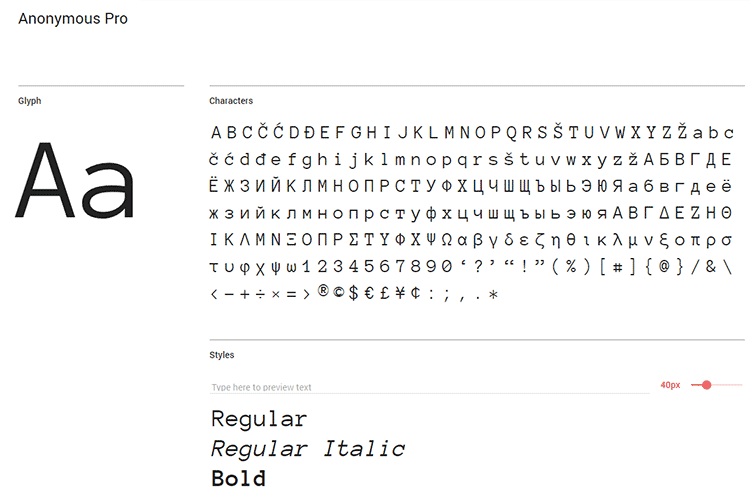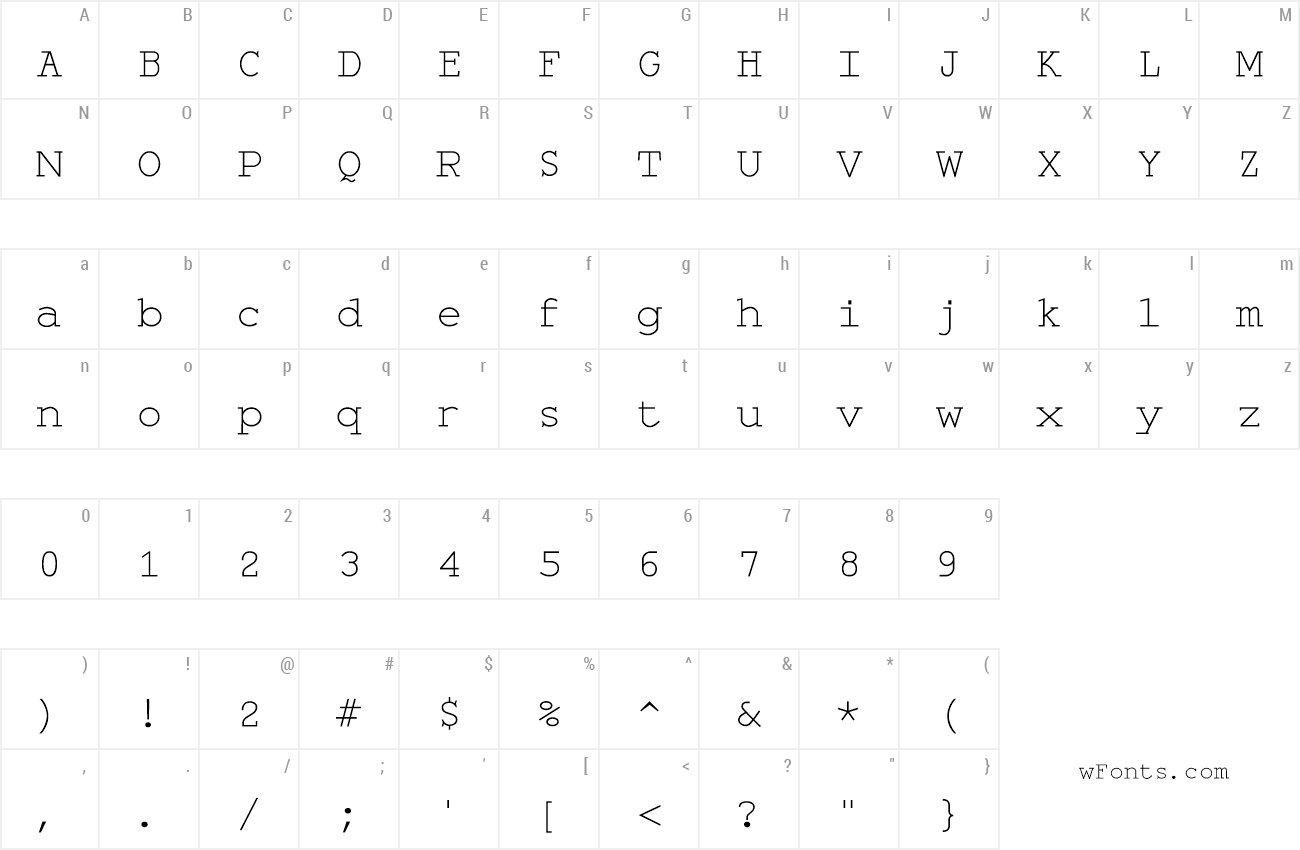
Best Monospace Font Word
Best Monospace Font Word. Not many people consider the importance of choosing and using the right font to project professionalism on your on screen documents or printed materials. You may not give much thought to the font you currently use for coding.
The first is proportional space, and the second is monospace. Download free monospaced fonts at urbanfonts.com our site carries over 30,000 pc fonts and mac fonts. Samples of monospaced typefaces typeface name example 1 example 2 example 3 {{{name}}} cascadia code:
Many Of Those Symbols, Letters, And Special Characters Are Quite Useful In Writing And Programming (E.g.
The first is proportional space, and the second is monospace. Samples of monospaced typefaces typeface name example 1 example 2 example 3 {{{name}}} cascadia code: It's a monospace font designed for printed code listings, terminal emulators, and similar uses.
Howard Bud Kettler, Adrian Frutiger Cutive Mono
Not many people consider the importance of choosing and using the right font to project professionalism on your on screen documents or printed materials. If you’re a business owner, student, or anyone who wants to add some professionalism in. When you subscribe to my weekly type roundup newsletter, i’ll send you a free pdf with a list of my predictions.
Examples of monospaced fonts include courier, courier new, lucida console, monaco, and. The courier font family was actually purposely designed as a typewriter font for ibm. Sans serif professional fonts in word.
An Open Source Alternative To The Proprietary Consolas Font From Microsoft.
It immediately gives retro vibes to a block of text. You are probably happy with the default monospaced font that comes with your favorite ide, and over time, you’ve become accustomed to it. Many “hipster” or “vintage” designs work with those fonts.
Merchant Copy +2 By Cumberland Fontworks.
Comes with ligatures for a. The type style you're looking for is monospace. Look out for odudo, a practical monospace fonts set that gives a lovely geometric, modern feel.